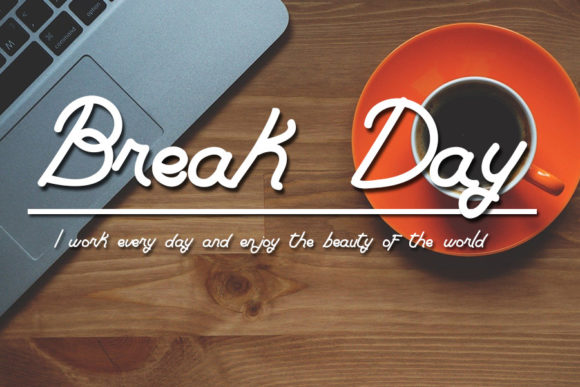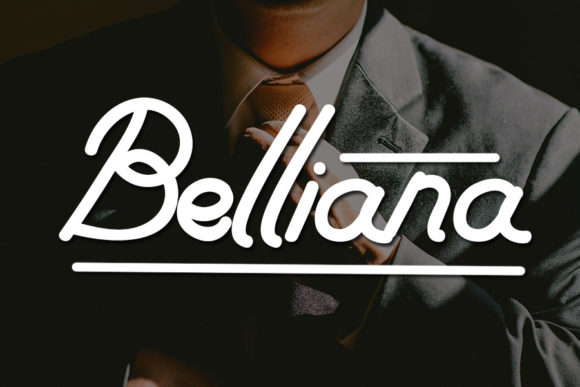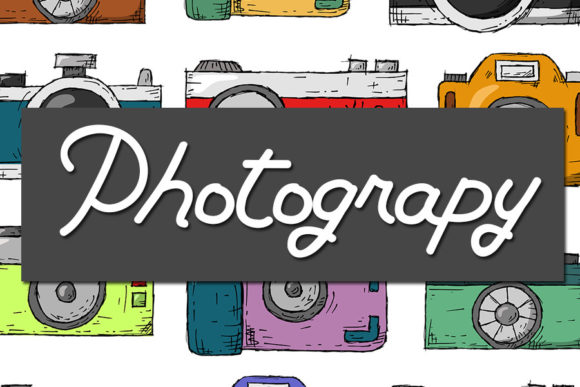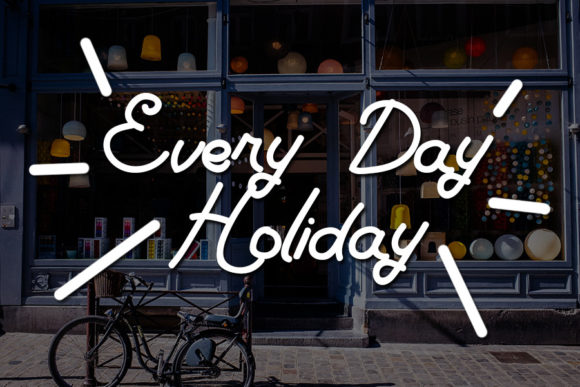
Cangcuters Font: Elevate Your Designs with a Timeless Handwritten Style
In the world of typography, fonts play a crucial role in conveying the tone and personality of a design. For designers and crafters looking to add a touch of elegance and sophistication to their work, the Cangcuters Font is an excellent choice. This lovely and timeless handwritten font is perfect for creating eye-catching logos, branding, and quotes that will leave a lasting impression.
The Unique Charm of Cangcuters Font
What sets Cangcuters Font apart from other fonts is its unique and beautiful touch. Every letter has been carefully crafted to showcase a distinctive character that will make your design come alive. The font’s handwritten style exudes a sense of warmth and personality, making it ideal for designs that require a personal touch.
Whether you’re a designer looking to create stunning logos and branding or a crafter seeking to add a personal touch to your projects, Cangcuters Font is the perfect choice. Its versatility and elegance make it suitable for a wide range of design applications, from digital projects to print materials.
Key Features of Cangcuters Font
- Timeless Handwritten Style: Cangcuters Font boasts a classic handwritten style that will never go out of fashion.
- Unique Letterforms: Every letter has a distinctive character that will add a personal touch to your designs.
- Elegant and Sophisticated: The font’s elegant and sophisticated style makes it perfect for creating high-end designs.
- Versatile: Cangcuters Font is suitable for a wide range of design applications, from logos and branding to quotes and digital projects.
Tips for Getting the Most Out of Cangcuters Font
- Pair it with Other Fonts: Combine Cangcuters Font with other fonts to create visually appealing typography.
- Experiment with Colors: Try out different colors and gradients to add depth and interest to your designs.
- Use it for Headlines and Titles: Cangcuters Font is perfect for creating eye-catching headlines and titles that will grab attention.
In conclusion, Cangcuters Font is a lovely and timeless handwritten font that is perfect for designers and crafters looking to add a touch of elegance and sophistication to their work. Its unique and beautiful touch, versatility, and elegance make it an excellent choice for creating eye-catching logos, branding, and quotes. With Cangcuters Font, you can elevate your designs and take them to the next level.